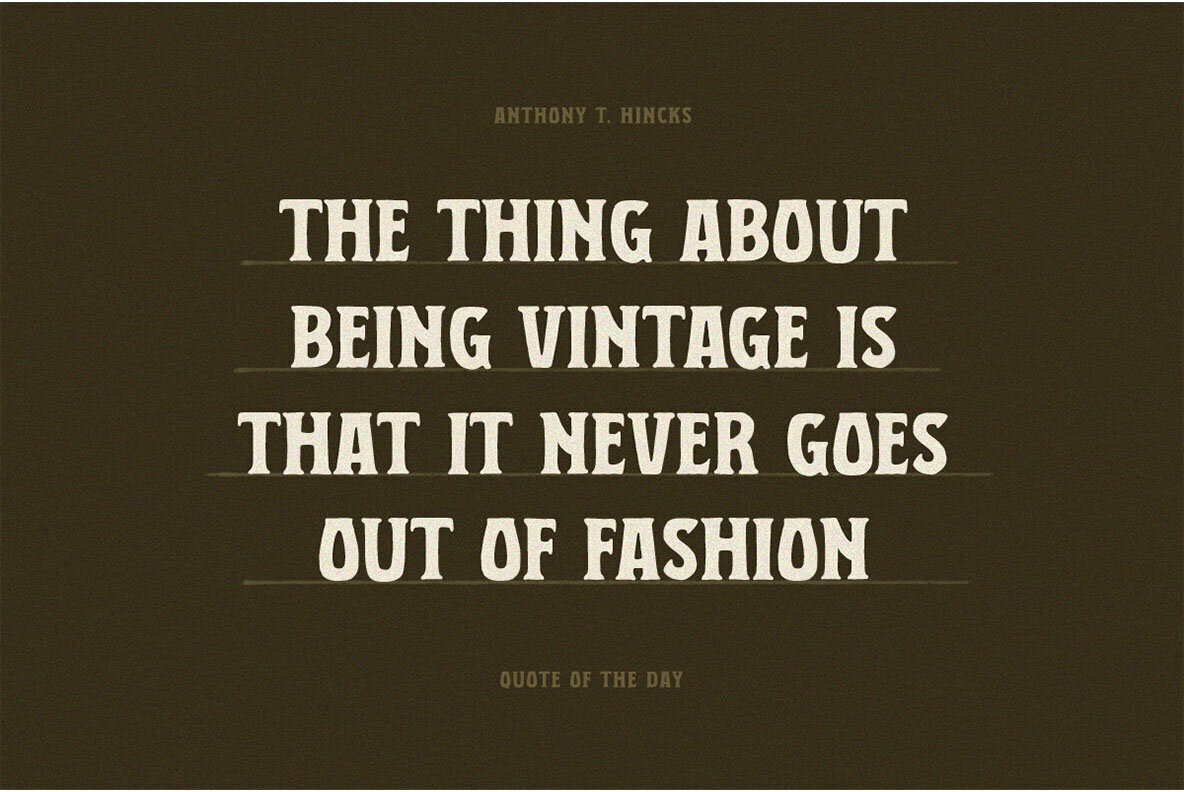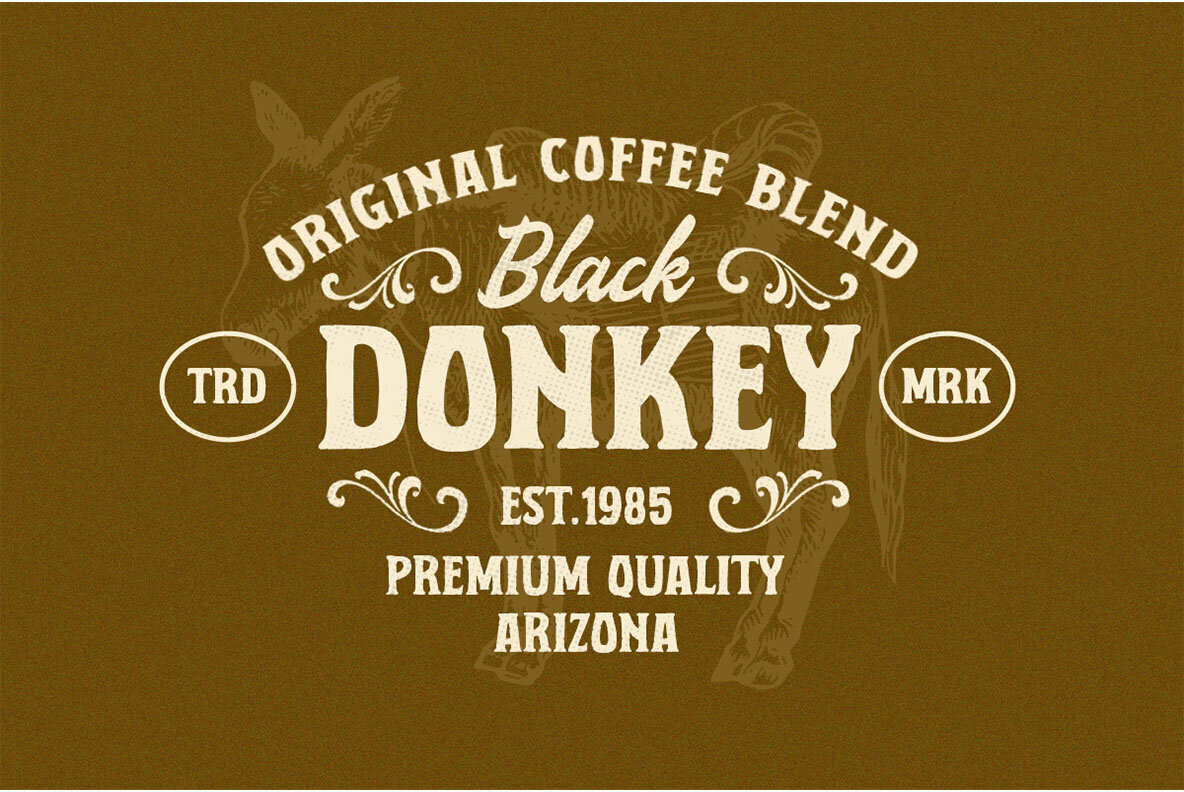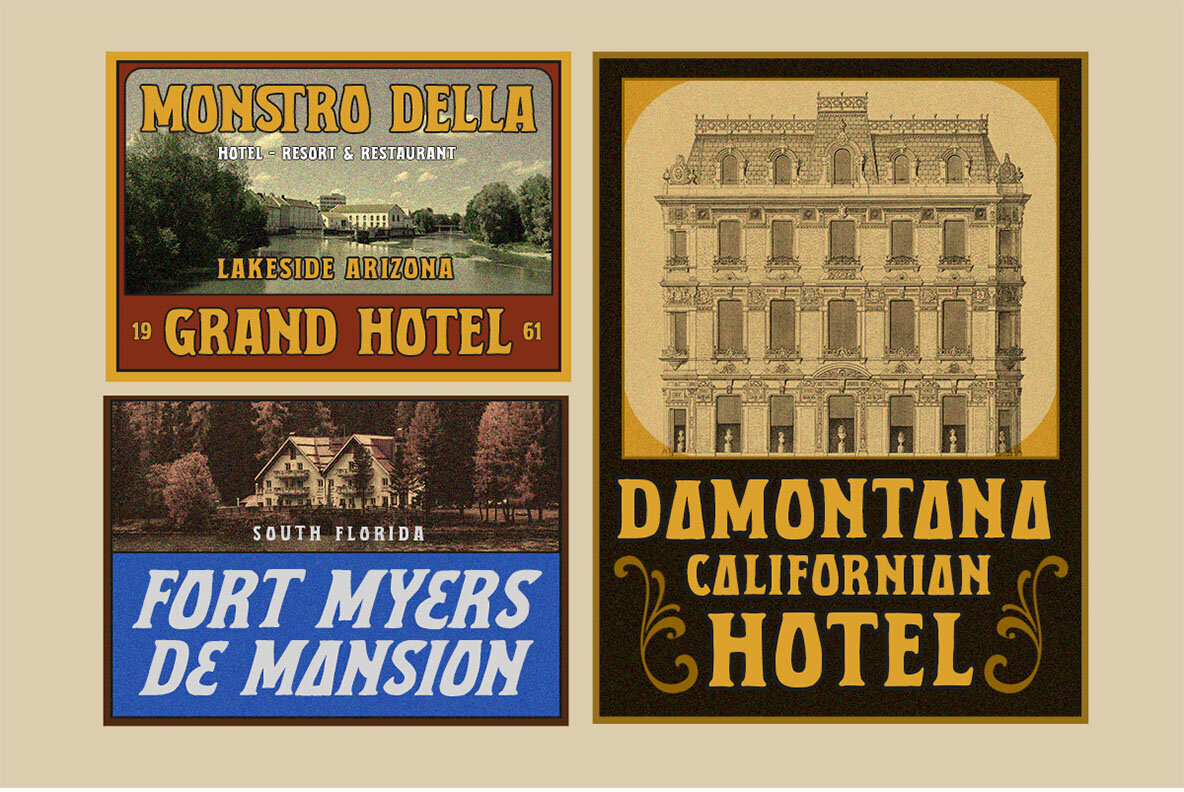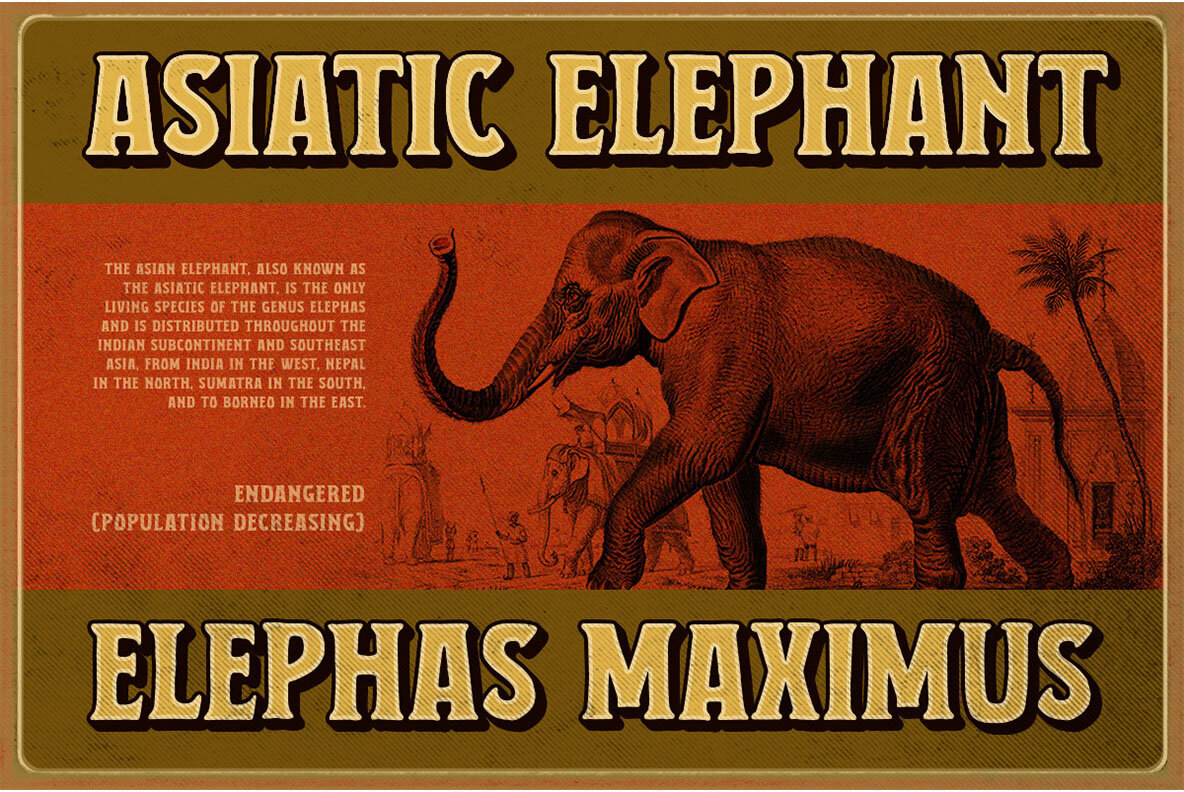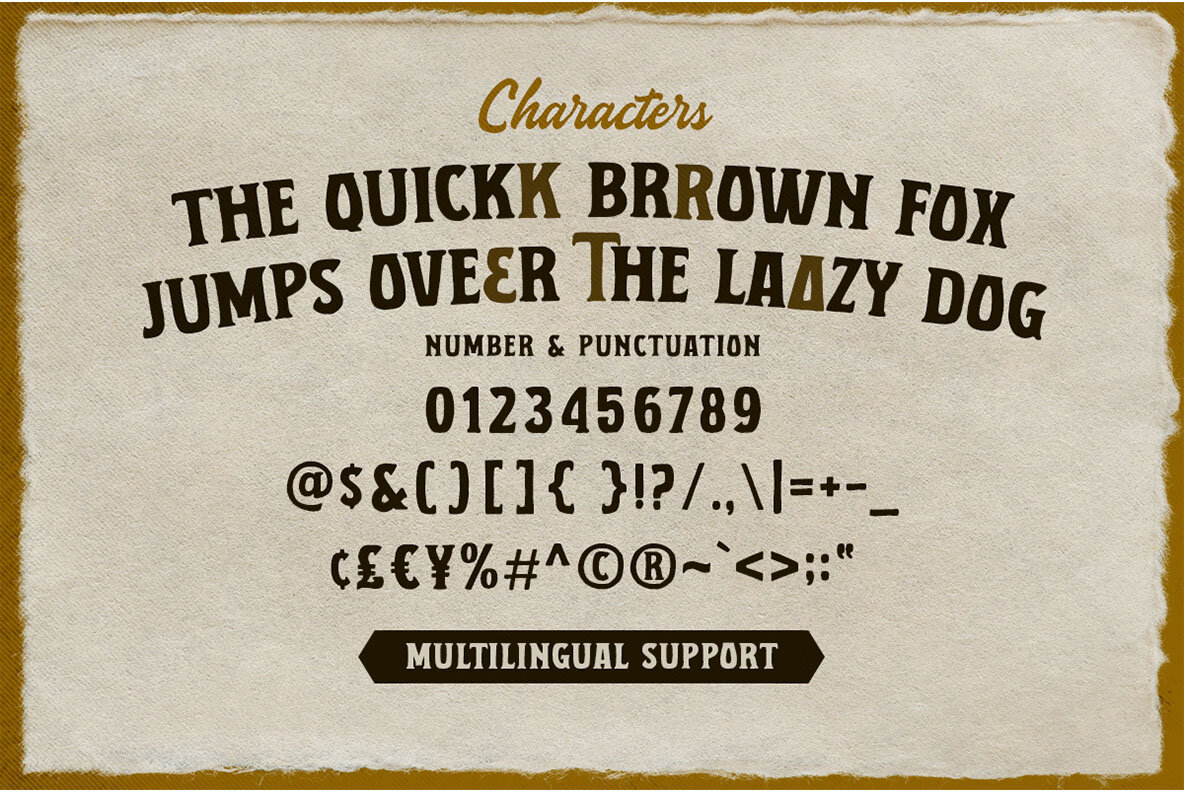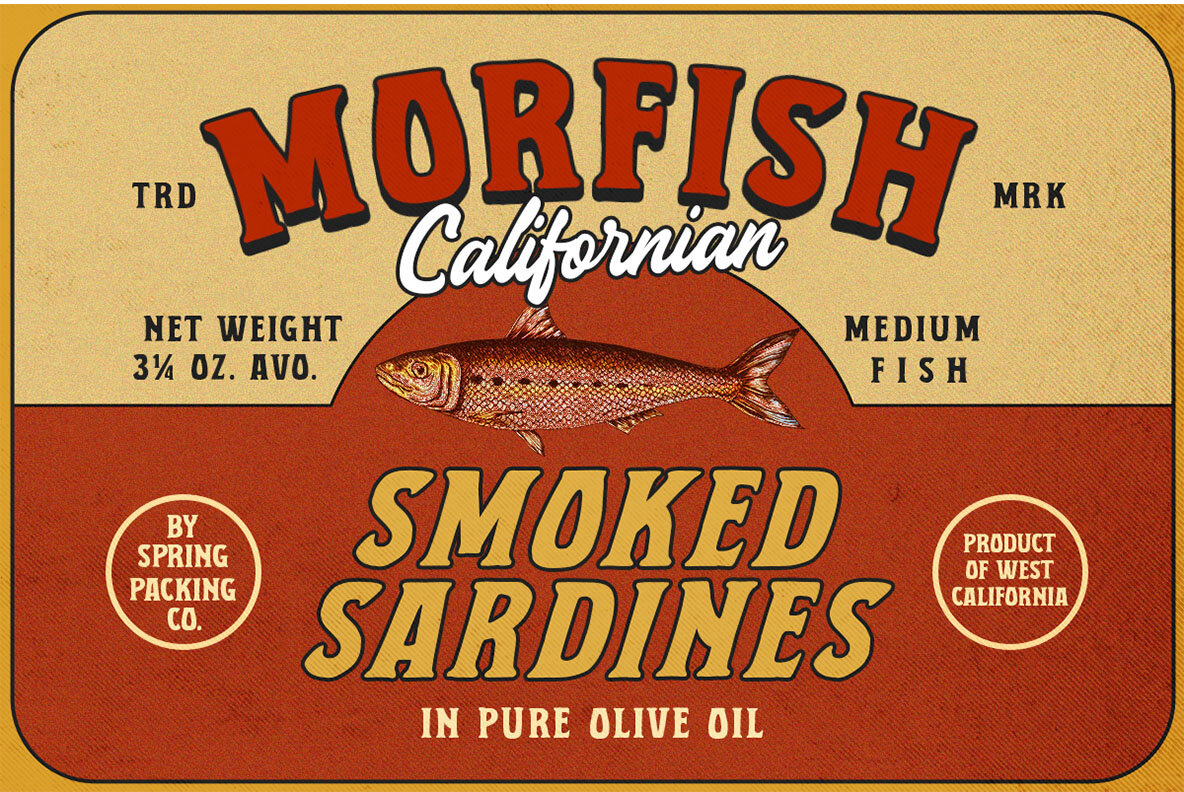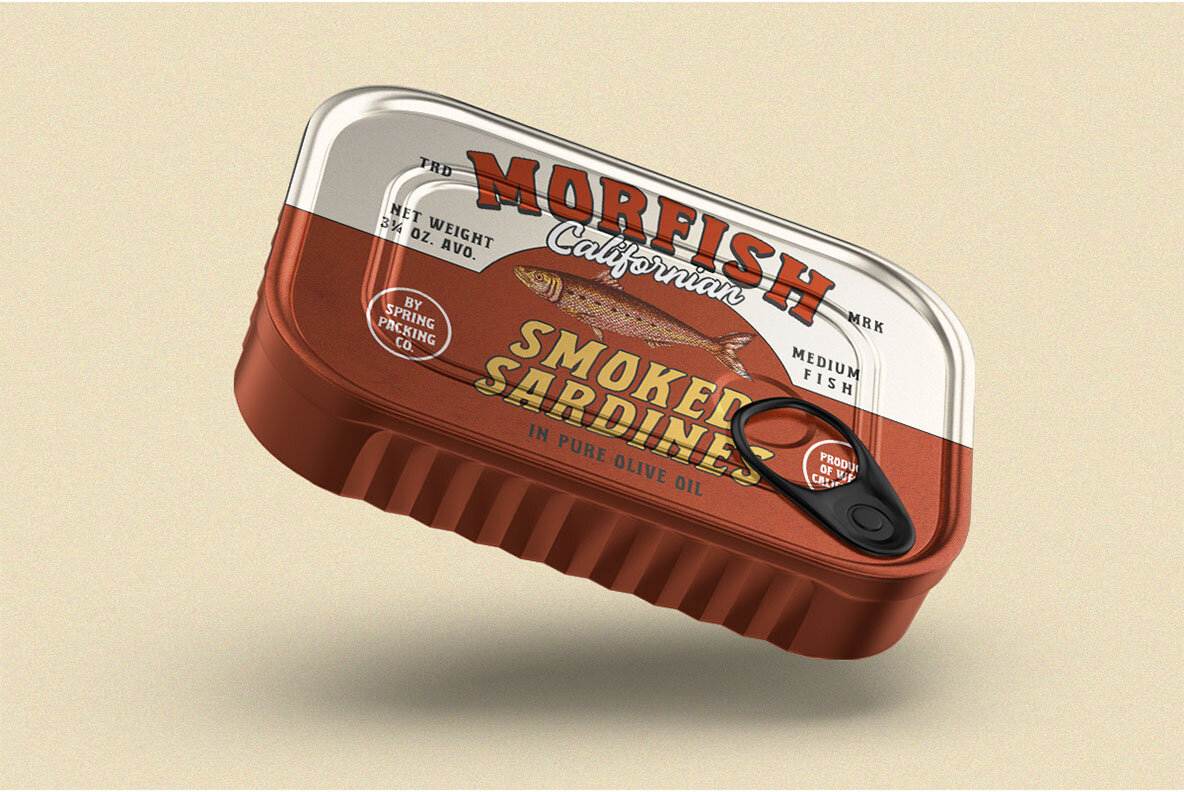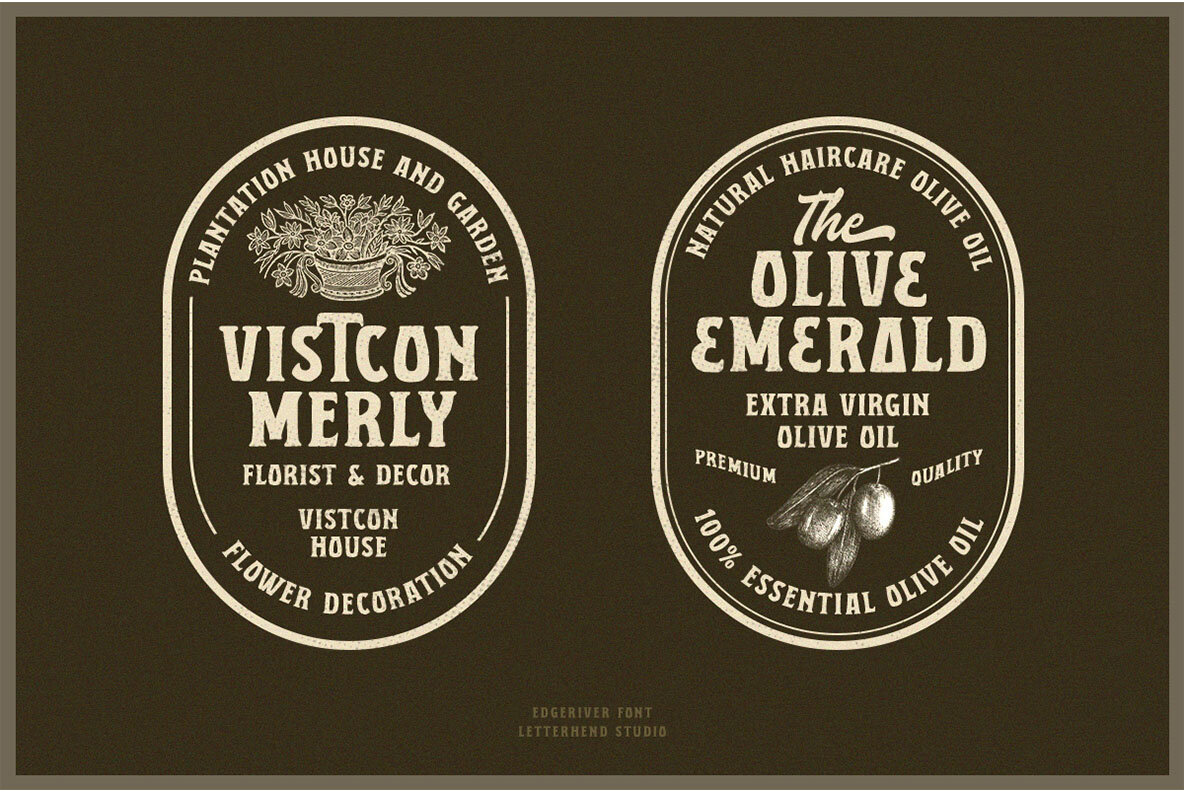
The Edgeriver Font
The Edgeriver by Letterhend Studio is a serif display typeface imbued with a nostalgic touch. Its hand-drawn aesthetics lend an authentic and organic feel to your designs. Available in regular and slant versions, this font is exceptionally suited for logos, headlines, and signage. Its versatile nature makes it ideal for various formal formats, including invitations, labels, and advertising. To fully utilize The Edgeriver's capabilities, we recommend software with OpenType features and Glyphs panels, such as Adobe apps or Corel Draw. For guidance, explore tutorials on using OpenType features at Letterhend's website.The Edgeriver: Classic Serif with a Vintage Charm